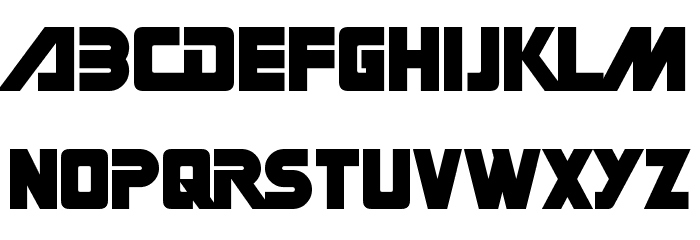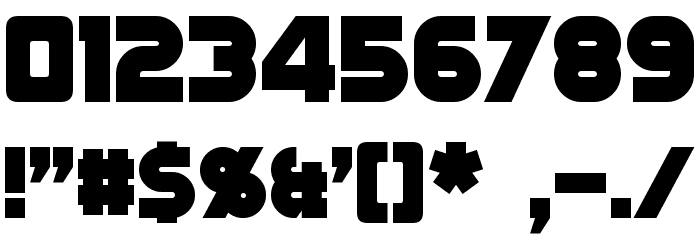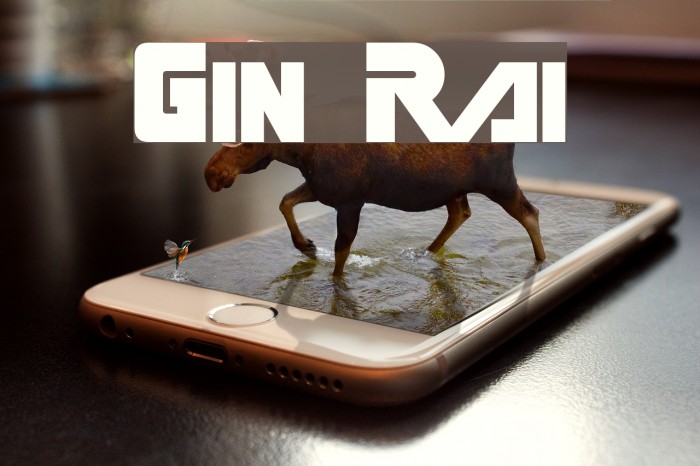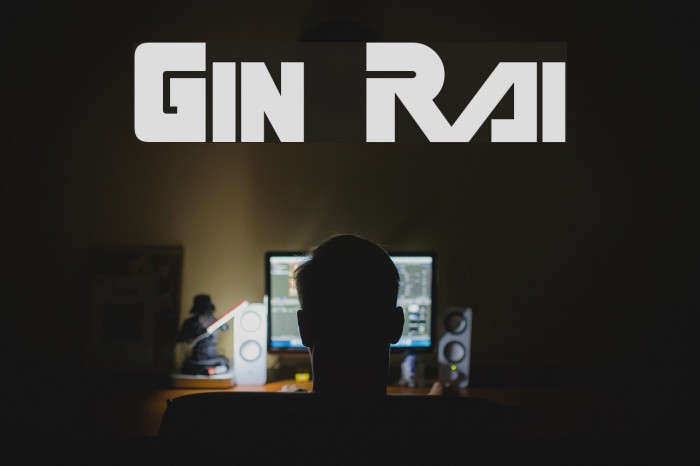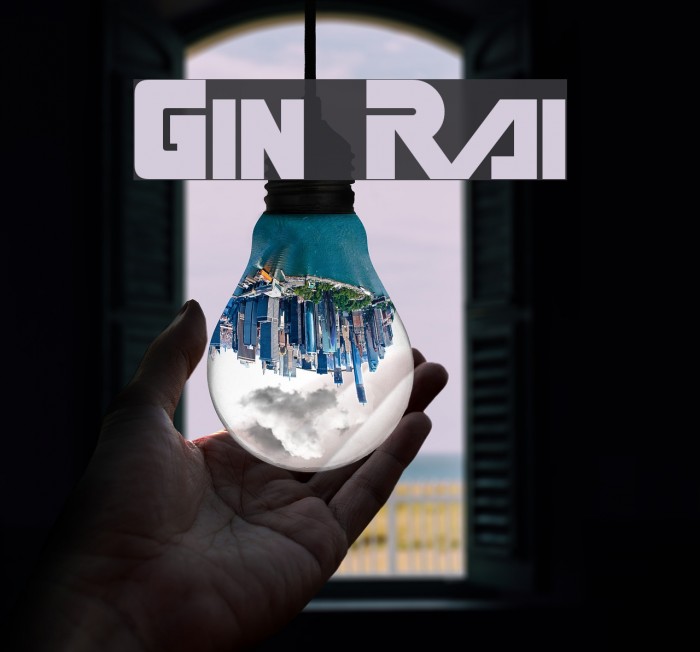
Gin Rai Font
This font features a bold, geometric style with a strong emphasis on angular shapes and sharp edges. Each character is crafted with a futuristic aesthetic, making it ideal for modern and tech-oriented designs. The uppercase letters are particularly striking, with a blocky appearance that commands attention. The numbers and special characters maintain the same boldness and geometric precision, ensuring consistency across all elements. The font's design is both eye-catching and functional, suitable for a variety of creative applications.
- Proposed Projects: Ideal for tech branding, futuristic posters, video game graphics, and sci-fi themed projects.